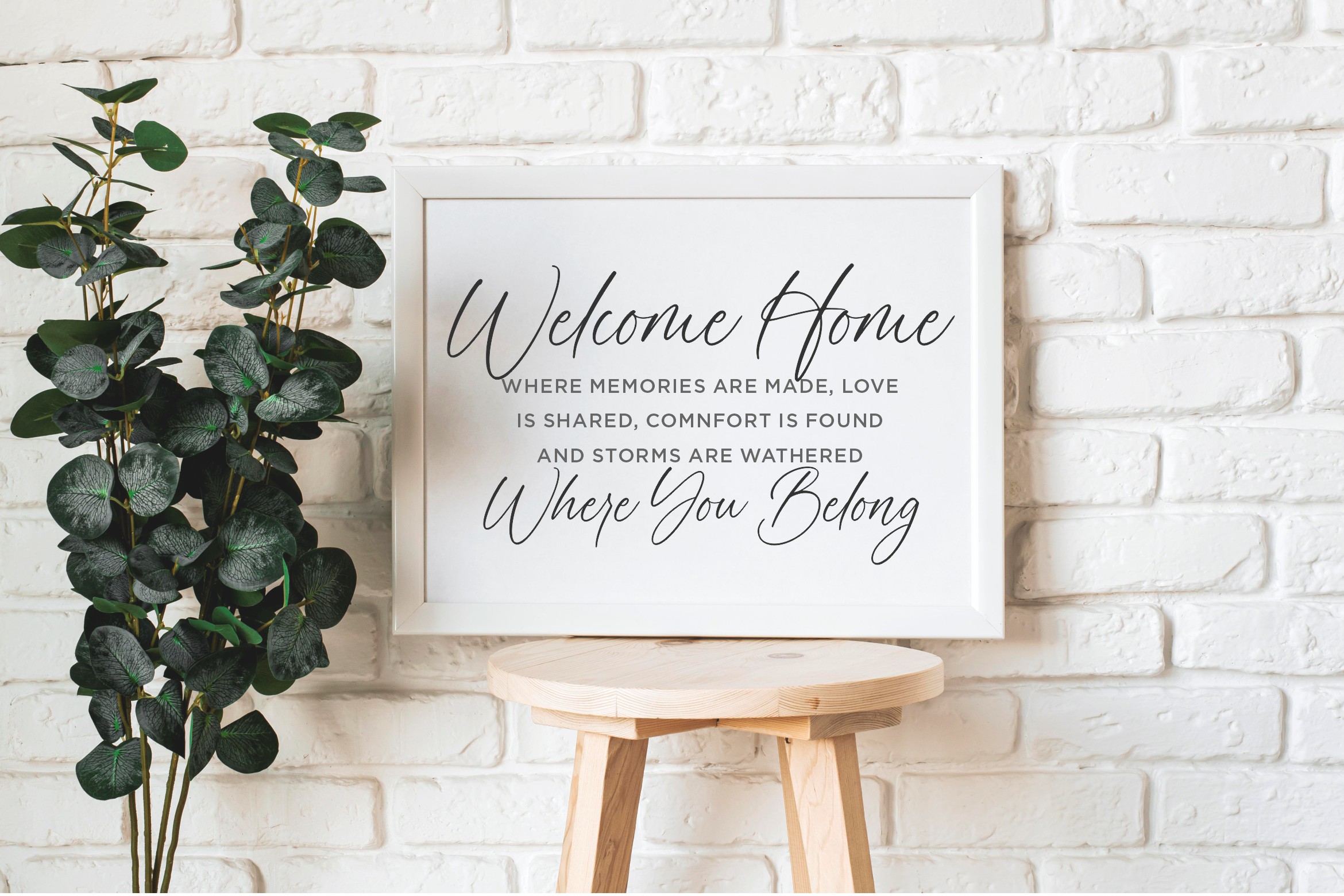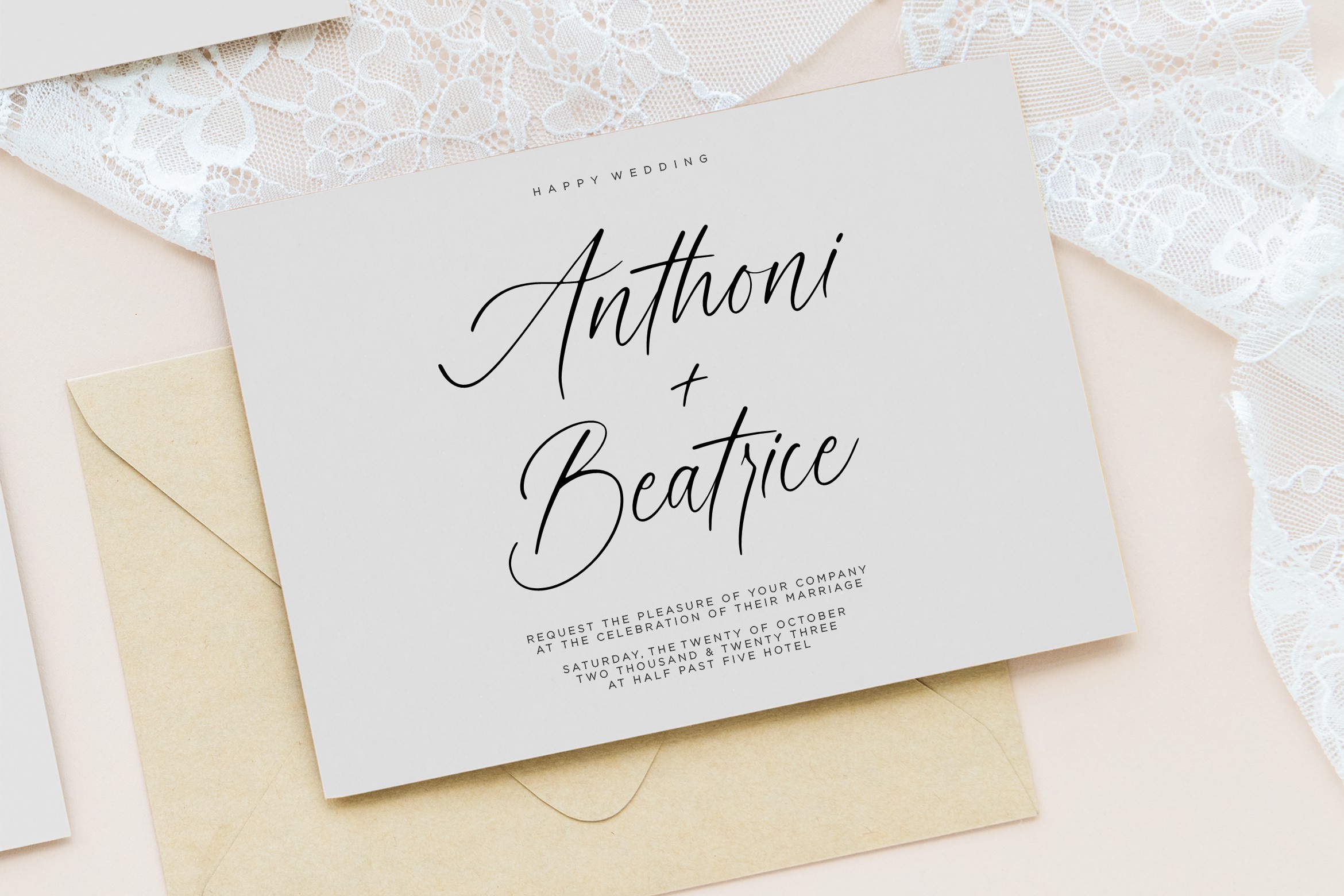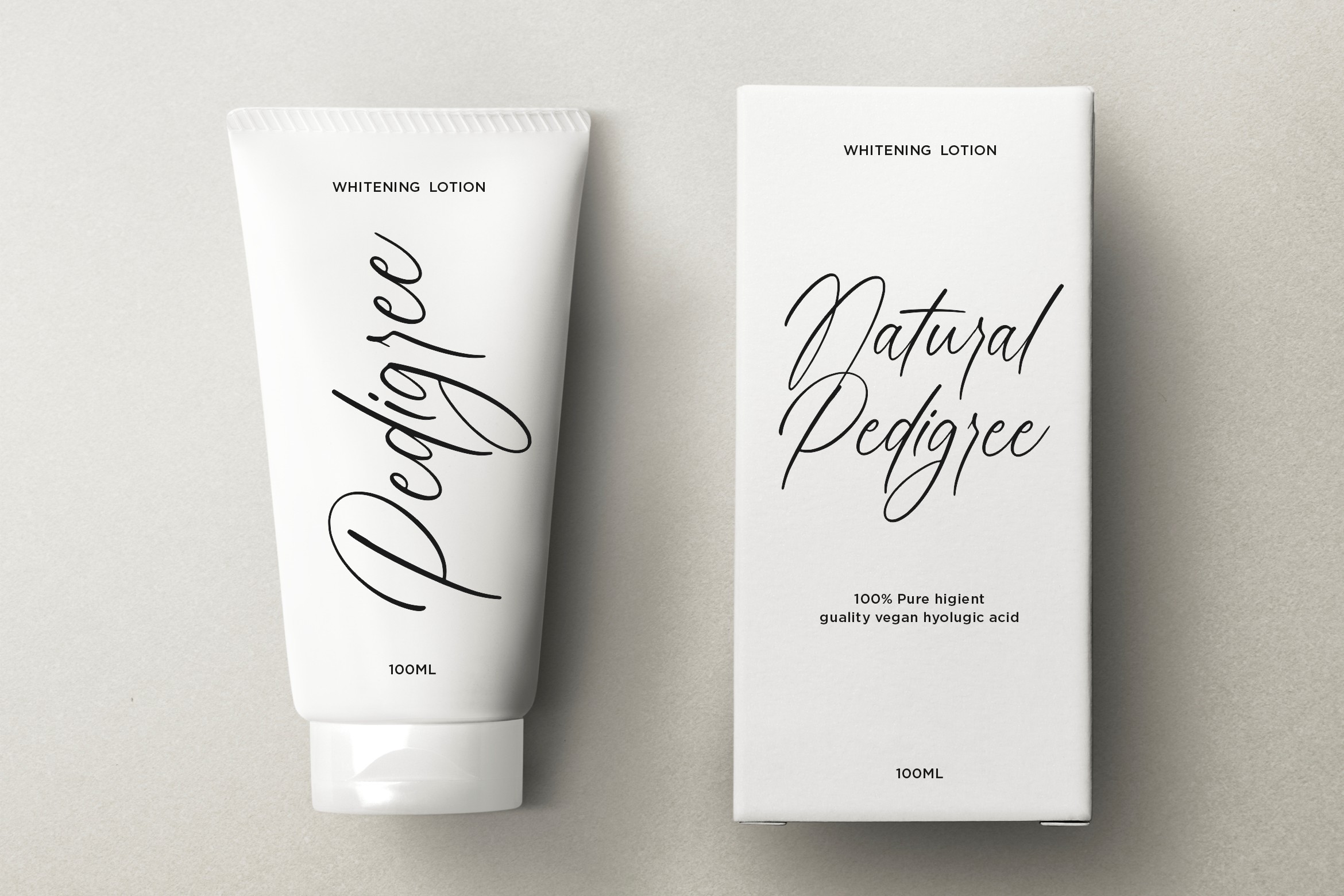
Rainbow Marbles Font
Rainbow Marbles Script Font is perfect for product packaging, branding project, megazine, social media, wedding, or just used to express words above the background. This font includes OTF, TTF & WOFF. Rainbow Marbles also multilingual support.